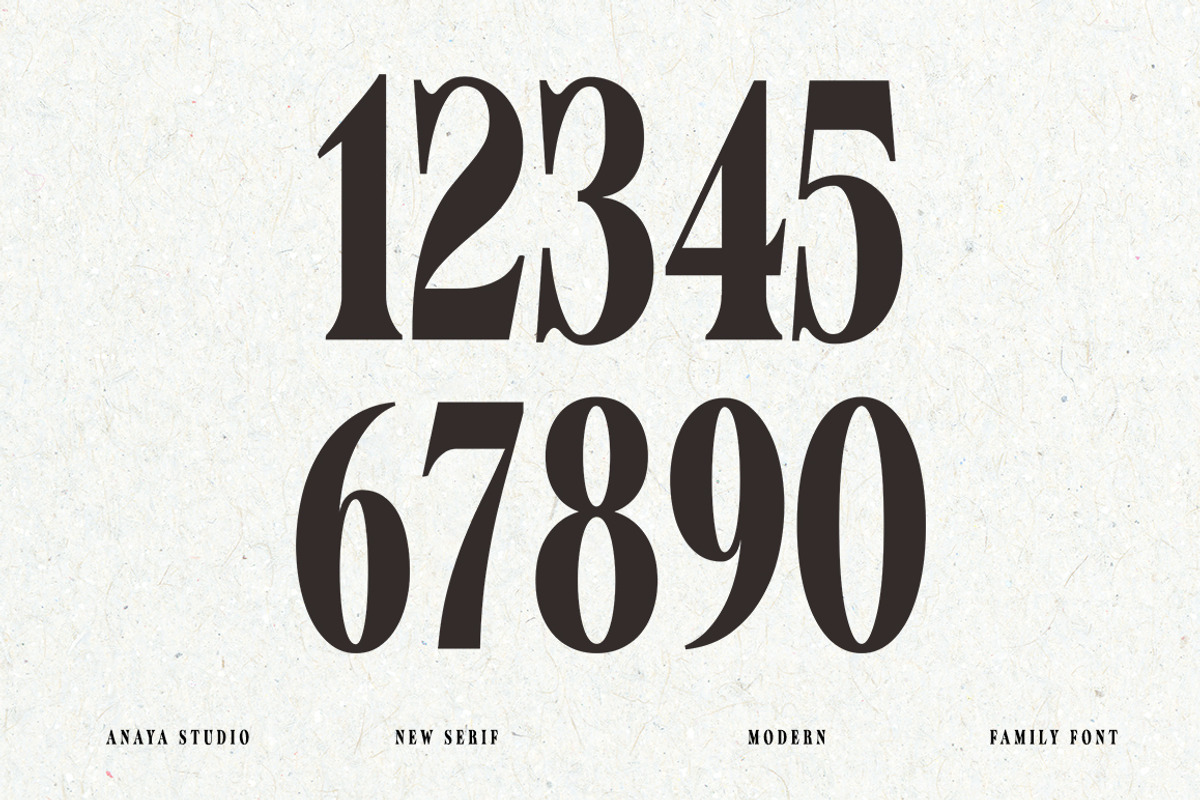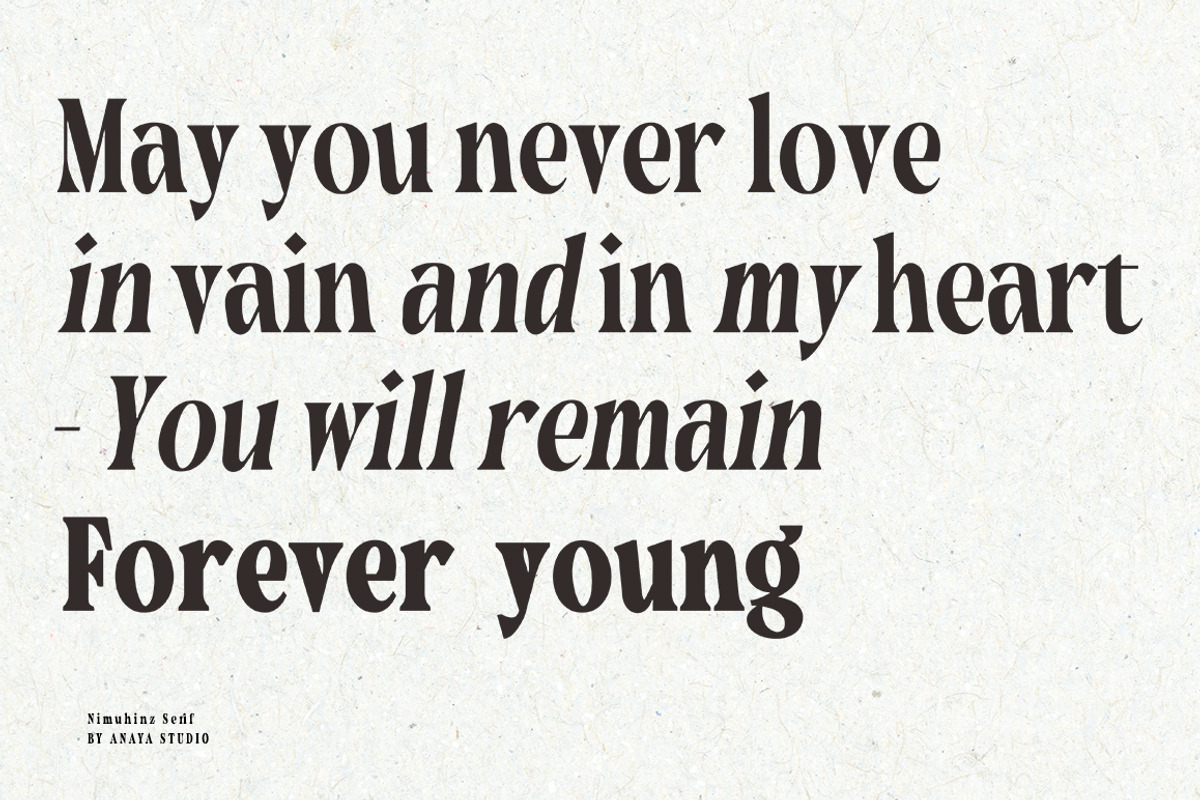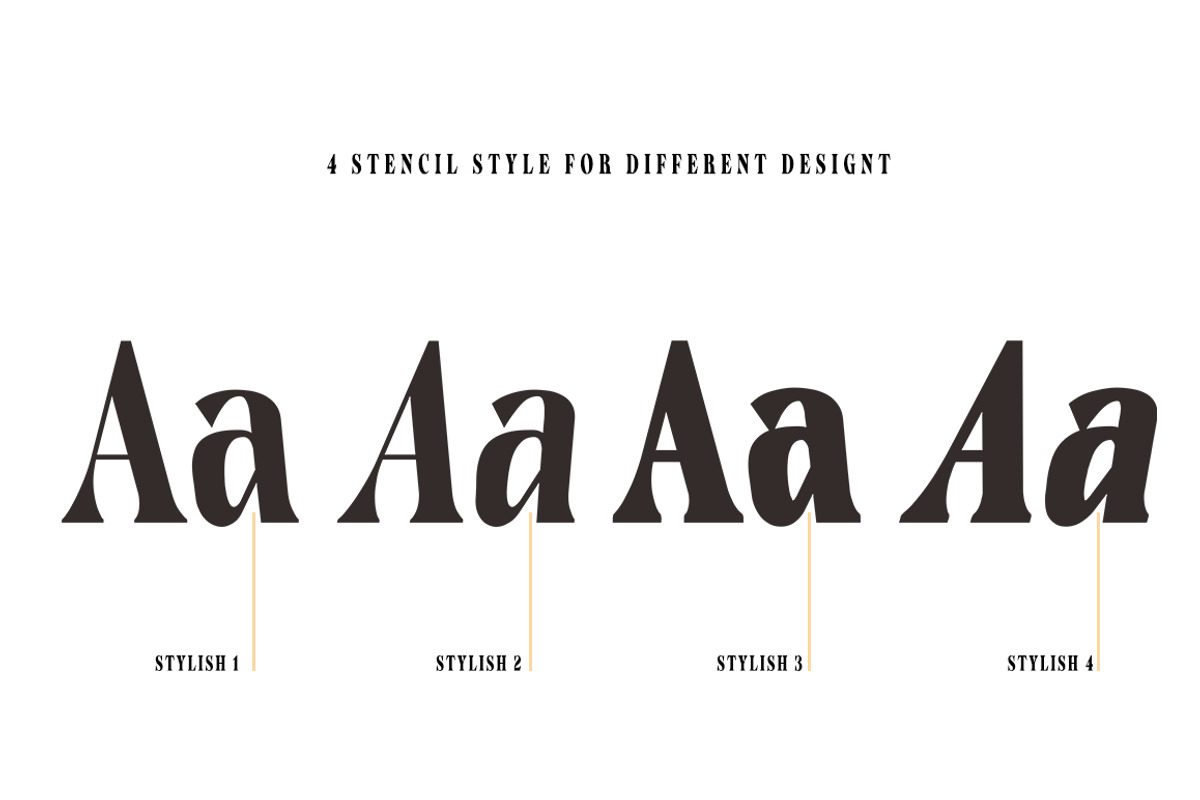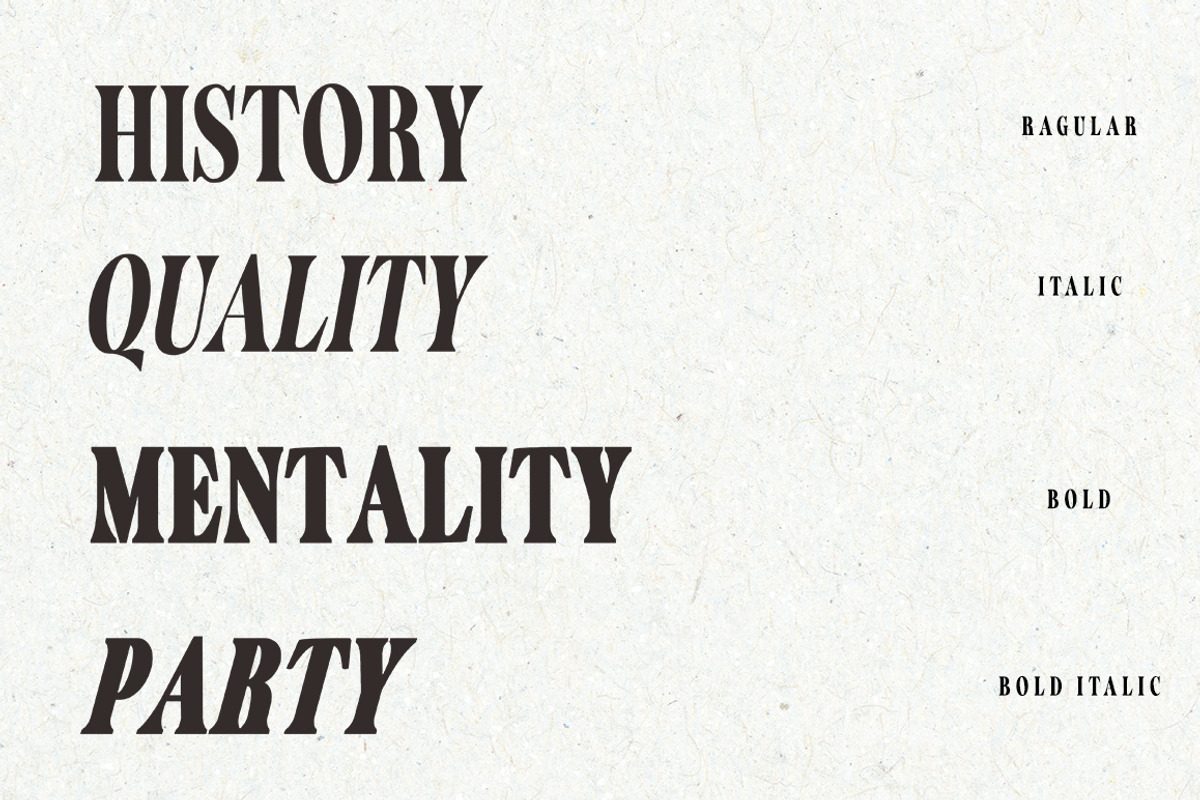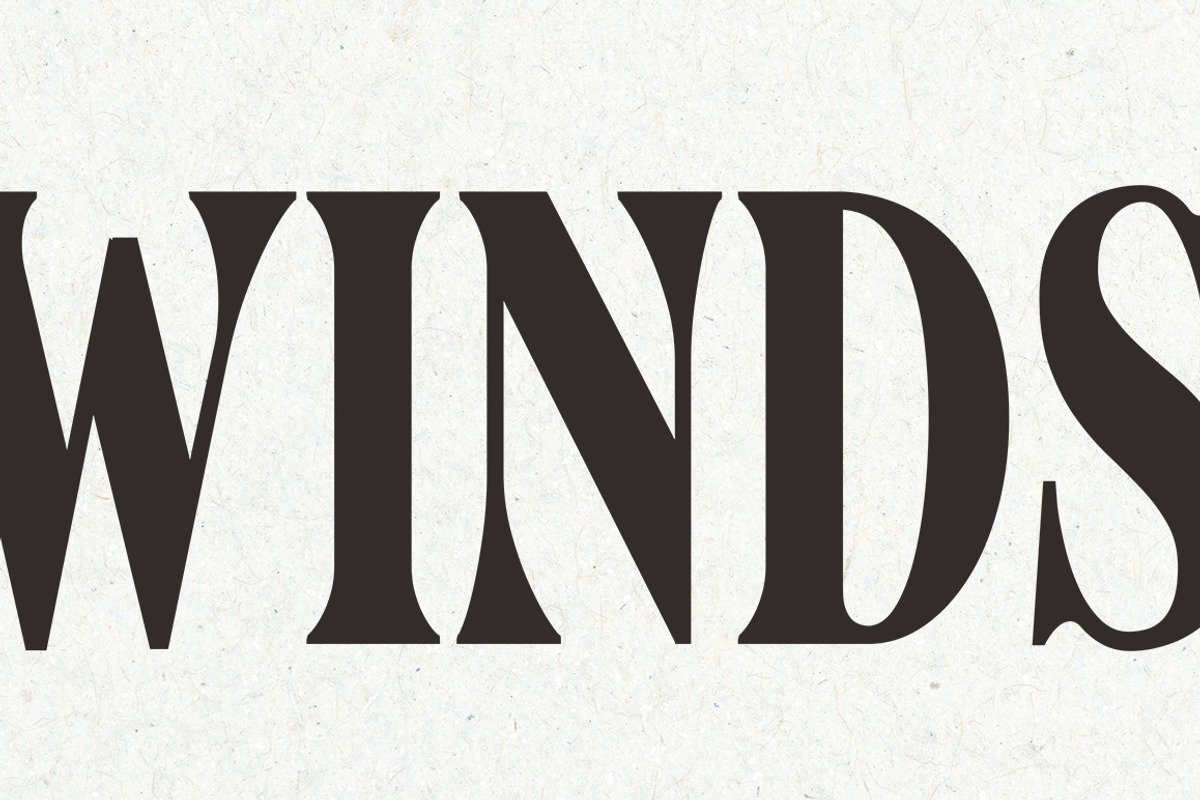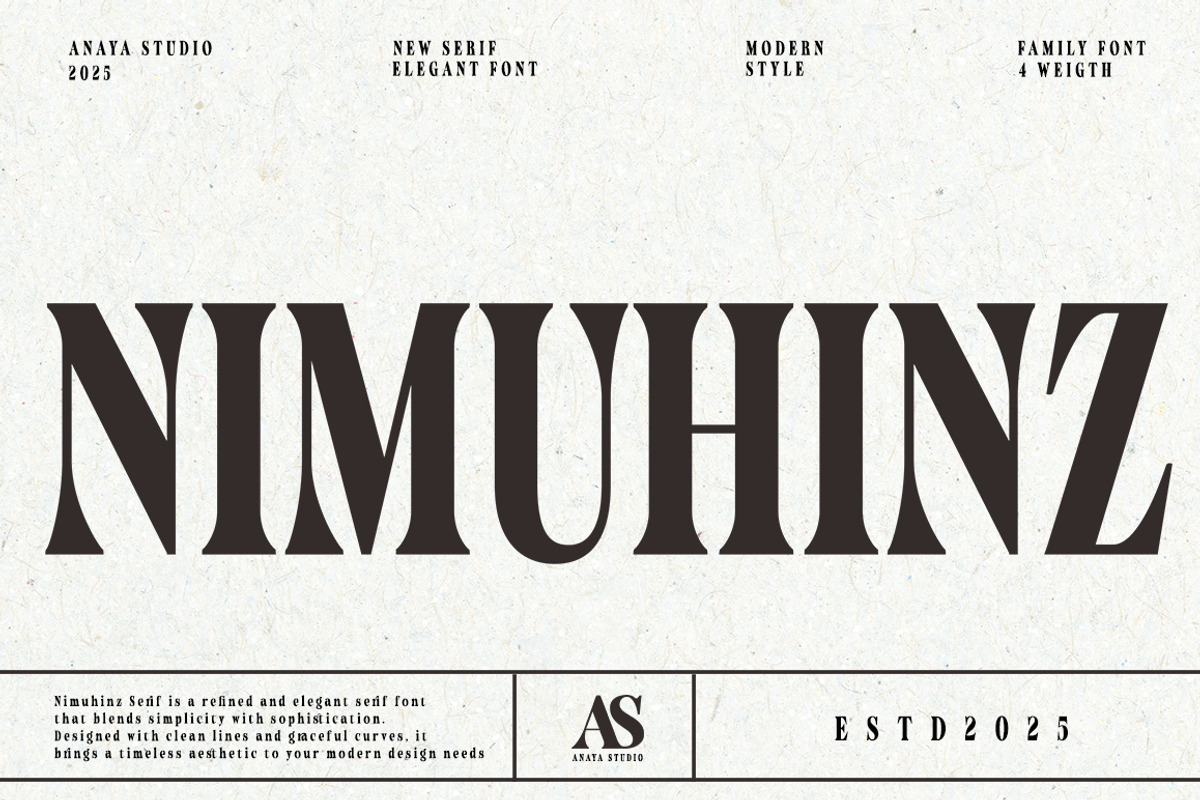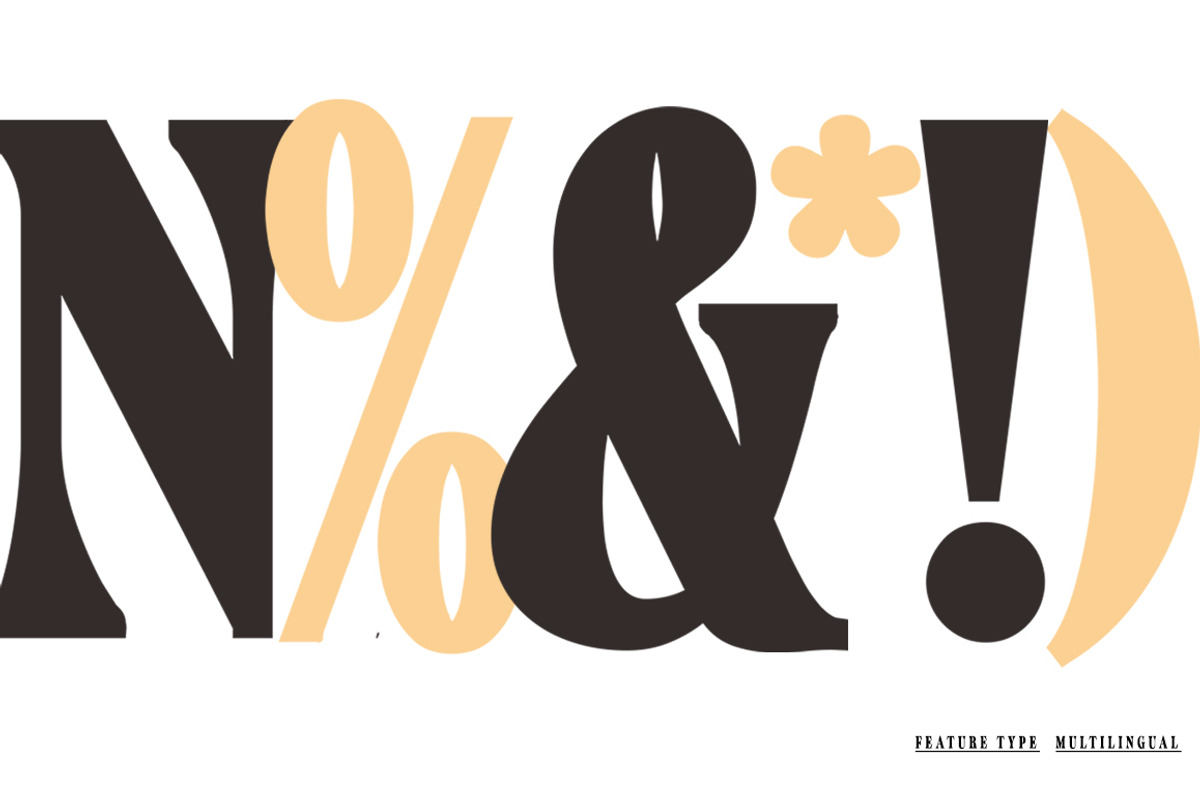
Nimuhinz
NIMUHINZ – Refined Elegance in Every Curve NIMUHINZ is a modern serif typeface that exudes elegance, confidence, and timeless style. Designed with bold contrast, sharp serifs, and graceful curves, it brings a perfect harmony of tradition and modernity. This font family includes 4 refined weights, making it versatile for both editorial use and high-end branding.
Whether you're crafting luxury logos, fashion headlines, or classy packaging designs, NIMUHINZ delivers a sophisticated tone that captures attention with understated power. Created by Anaya Studio in 2025, this typeface is a celebration of clean aesthetics and artistic flair.